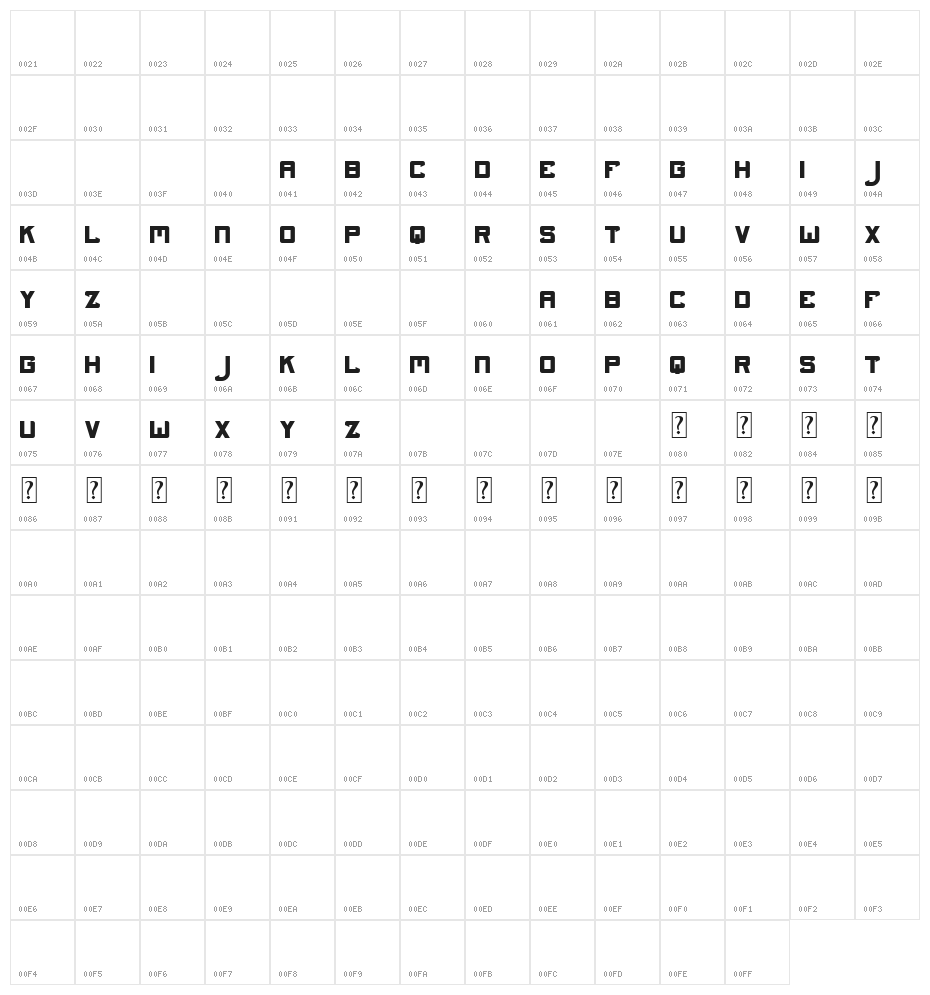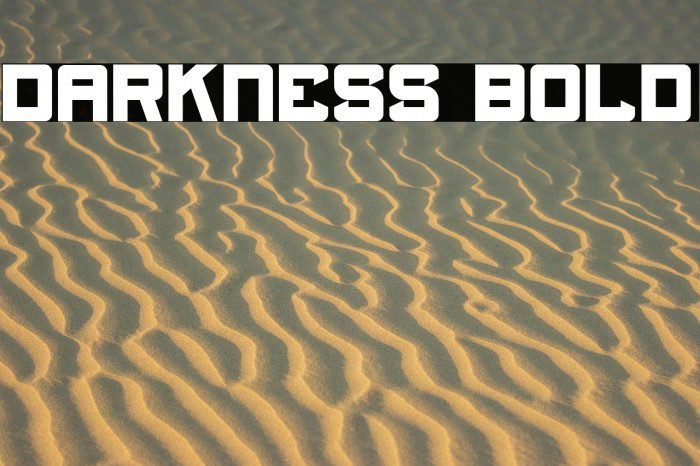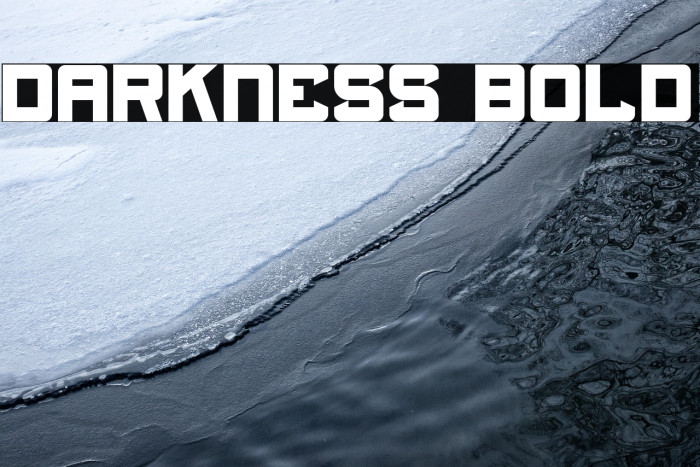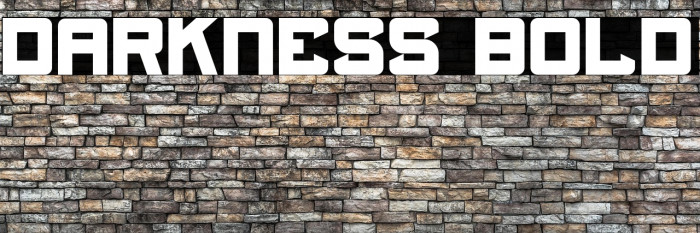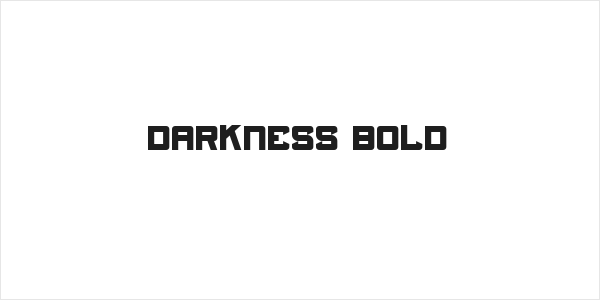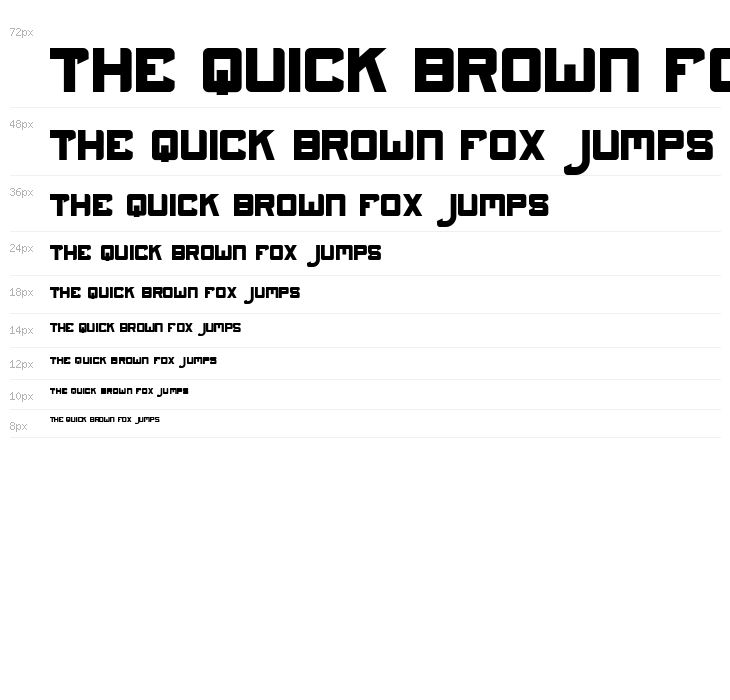
Darkness Bold Font
Darkness Bold Description
This font exhibits a bold, geometric style with strong, angular lines and a modern aesthetic. The characters are blocky and robust, featuring sharp edges and a uniform thickness throughout. The design is highly legible and impactful, making it suitable for attention-grabbing headlines and titles. The uppercase letters are consistent in height, contributing to a cohesive and structured appearance. The font's boldness and distinctiveness make it ideal for projects that require a strong visual presence.